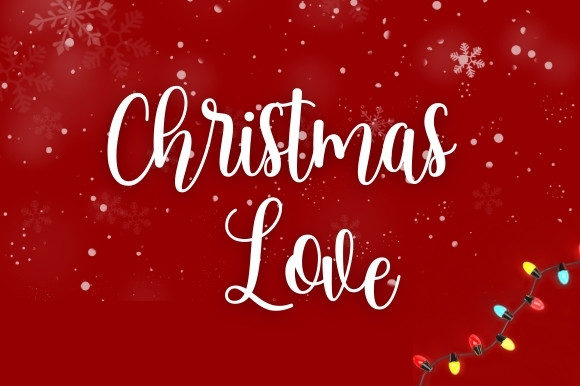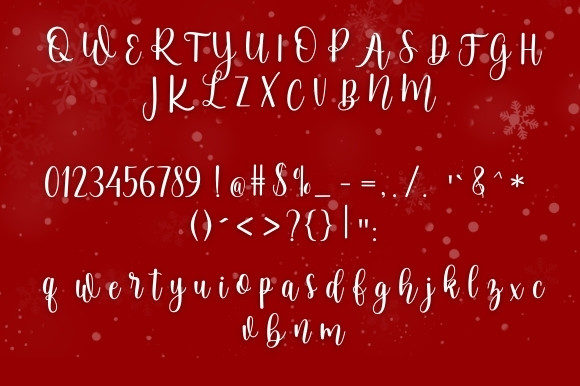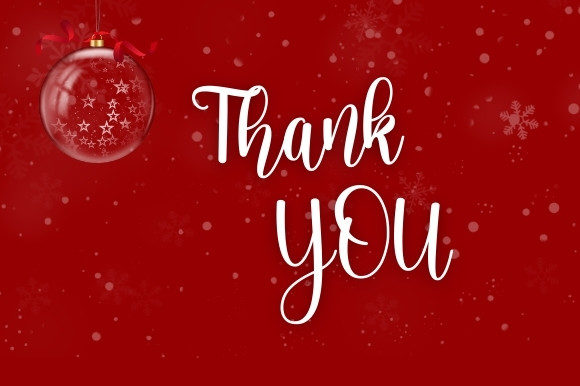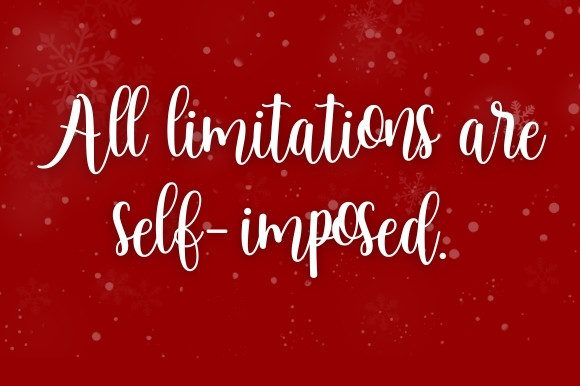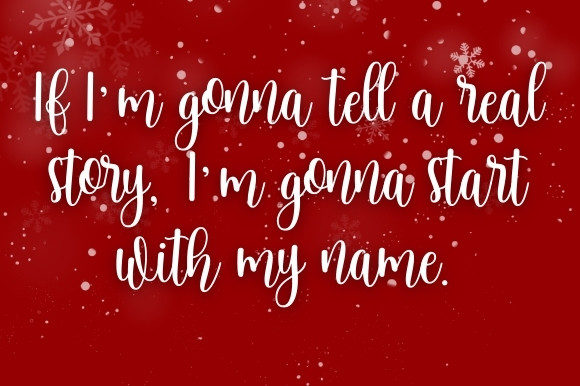
About Christmas Love Font
Christmas Love is a sweet and cursive handwritten font. This gentle font will look gorgeous on a variety of design ideas. It will add a joyful and romantic touch to each of your projects!